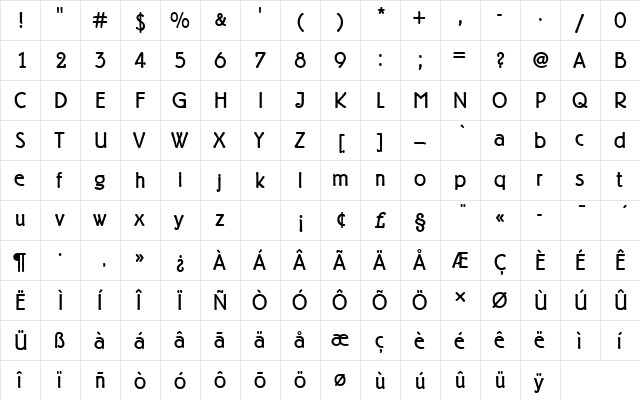
BerlinerGroDLigRo1 Regular Font Preview
BerlinerGroDLigRo1 Regular
Design Context for BerlinerGroDLigRo1 Typeface
BerlinerGroDLigRo1 takes a measured approach to typography — its balanced proportions and neutral character make it a reliable workhorse for both digital and print work.